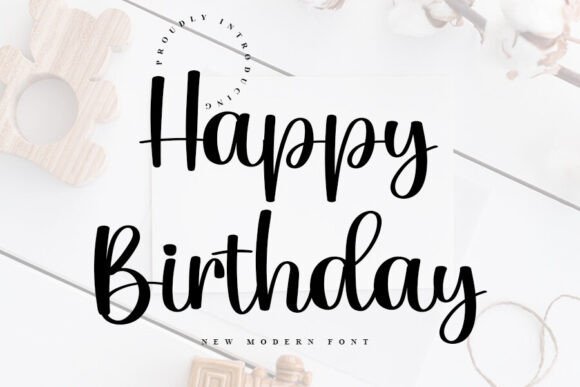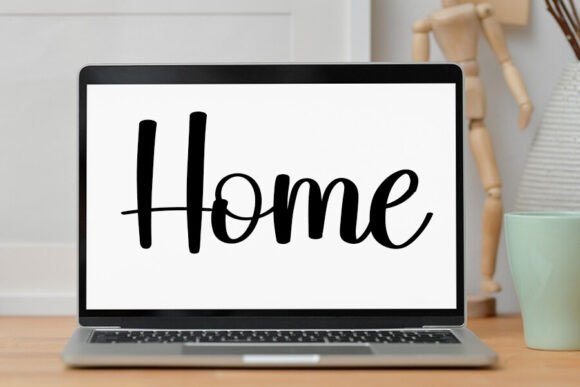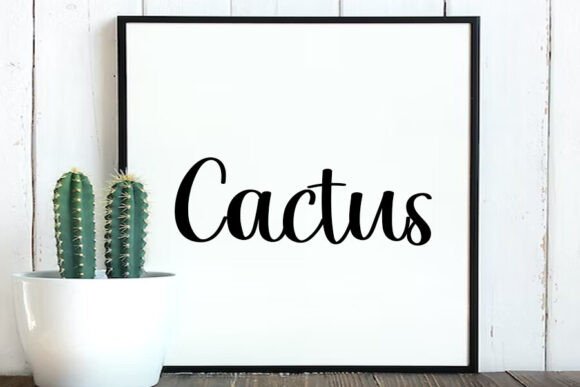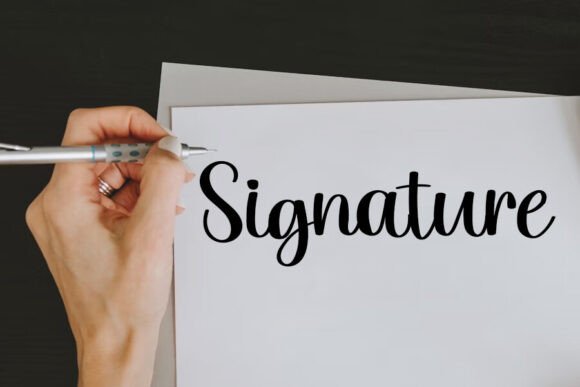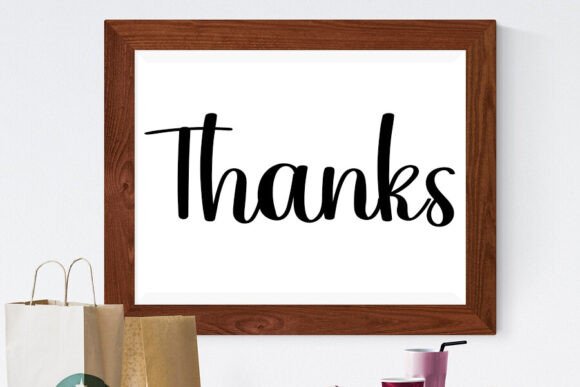
Elevate Your Designs with the Perfect Birthday Bash
Who among us hasn’t felt that rush of excitement when brainstorming a new project? The spark of creativity ignites, and before we know it, our imagination is running wild with ideas. For designers, this moment is what makes the job so thrilling. And what better way to unleash your creativity than with the perfect font to match your vision?
Enter the ‘Happy Birthday Font’, a delightful creation that brings charm and uniqueness to your designs. Whether you’re crafting a YouTube banner, wedding invitation, or ID card, this font is the perfect addition to make your work stand out. Its simplicity and eccentricity make it an invaluable tool for designers, allowing you to propel your business growth and advancement with ease.
Happy Birthday Font Key Features
- Unique Characteristics: The font features playful, cursive script with decorative elements, making it perfect for celebratory occasions like birthdays and anniversaries.
- Font Style: Available in both regular and bold weights, allowing users to choose the level of emphasis they need for their design.
Happy Birthday Font Review
I recently had the chance to work with the Happy Birthday Font, and I wanted to share my honest thoughts on its performance. ✨ One thing that really stood out was its playful and celebratory feel, perfect for any birthday-themed project. The font is highly customizable, allowing for easy adjustments in color, size, and style to match your design needs.
Here are some specific features that I liked:
- ✨ Beautiful, cursive script that adds a personal touch to any design
- ✨ Highly customizable with various font sizes and styles
- ✨ Supports a wide range of languages, making it a versatile option for international designs
However, I did encounter some limitations with the Happy Birthday Font:
- ⚠️ Limited font weight options, which can make it challenging to achieve a balanced look in certain designs
- ⚠️ Not ideal for use in formal or professional settings due to its playful nature
- ⚠️ May not be the best choice for designs that require a lot of text or intricate typography
Overall, I think the Happy Birthday Font is a great addition to any designer’s toolkit, especially for projects that require a celebratory feel. While it has its limitations, I believe it can add a lot of personality and charm to your designs when used thoughtfully.
Tips for Getting the Most Out of the Happy Birthday Font
Here are some tips for getting the most out of the Happy Birthday Font:
- Combine the Happy Birthday Font with other fonts to create a visually appealing design.
- Use the font in conjunction with images or graphics to add visual interest
Alternatives to Happy Birthday Font for Designers
Great Vibes Font is a playful, handwritten font perfect for creating a lively atmosphere. It’s ideal for birthday invitations, greeting cards, or social media posts. This font is more whimsical and fun compared to Happy Birthday Font, which is more straightforward.
Dancing Script Font is a elegant, cursive font that adds a touch of sophistication to birthday designs. It’s suitable for formal events, high-end birthday parties, or special occasions. This font is more refined and sophisticated compared to Happy Birthday Font, which is more casual.